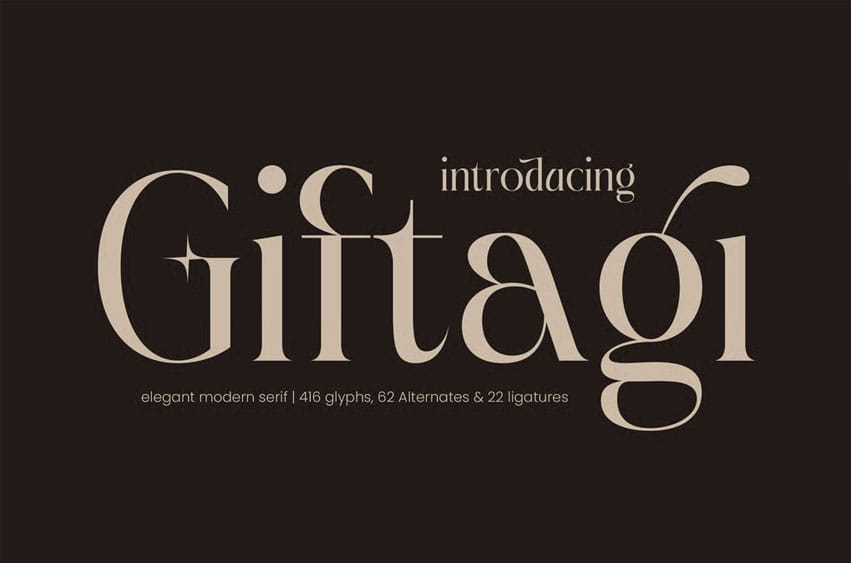
Giftagi Font is an elegant, modern serif font that brings sophistication and creative personality to every design. Featuring 416 glyphs, 62 alternates, and 22 ligatures, this typeface blends soft curves with refined contrast — making it ideal for luxury branding, editorial layouts, logo design, and high-end packaging.
Each character in Giftagi carries a graceful rhythm that balances minimalism with expressiveness. Its timeless design and distinctive alternates make it a perfect choice for designers who value precision and modern refinement in their typography.